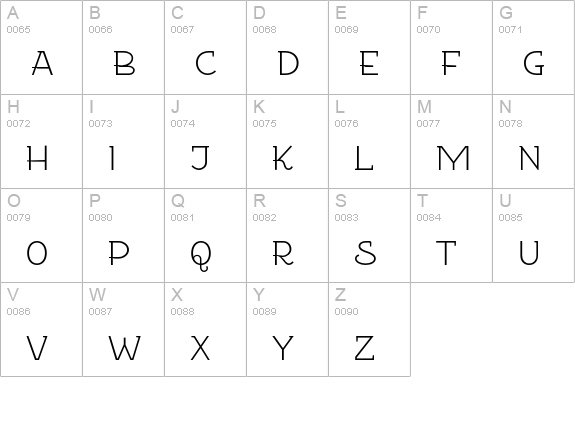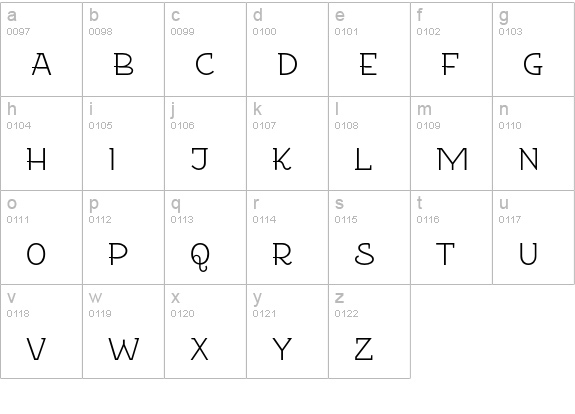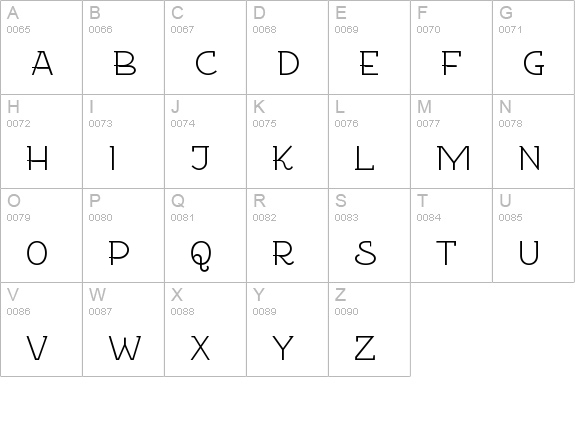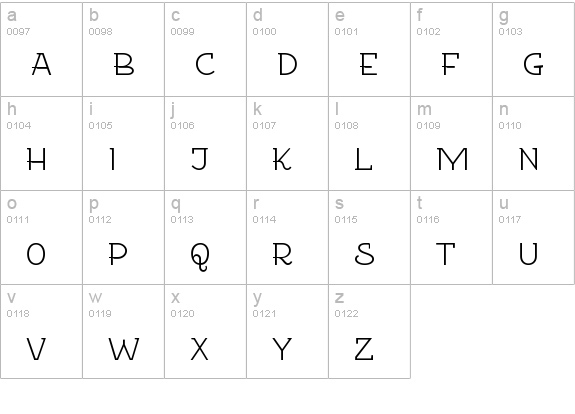
EtharnigSc Font Details
EtharnigSc font is a stunning and versatile typeface that captures the essence of elegance and sophistication. With its unique and eye-catching design, this font is perfect for adding a touch of class to any project. This font features beautifully crafted letterforms that are both bold and graceful, making it ideal for a wide range of design applications. Whether you're creating a logo, branding materials, or a stylish website, EtharnigSc font will certainly make a lasting impression. One of the best things about EtharnigSc font is that it is free to download. You can easily access this font at FontsMarket.com, where you'll find a vast collection of high-quality fonts for all your design needs. Offering both style and substance, EtharnigSc font is a valuable addition to any designer's toolkit. The clean and crisp lines of EtharnigSc font make it incredibly legible, ensuring that your message is conveyed with clarity and impact. The attention to detail in every character is truly remarkable, adding a touch of sophistication to your designs. Whether you're designing a wedding invitation, a book cover, or a corporate brochure, EtharnigSc font will elevate your project to new heights. Its versatility allows it to seamlessly adapt to any design concept, making it a go-to choice for designers worldwide. With EtharnigSc font, you can effortlessly create stunning typographic compositions that exude professionalism and style. Its timeless appeal and refined aesthetics make it a perfect choice for both print and digital mediums. In conclusion, EtharnigSc font is a must-have for any designer looking to add a touch of elegance to their projects. Best of all, it is freely available to download at FontsMarket.com, ensuring that you can access this remarkable font without any hassle. So why wait? Enhance your designs today with the timeless beauty of EtharnigSc font.